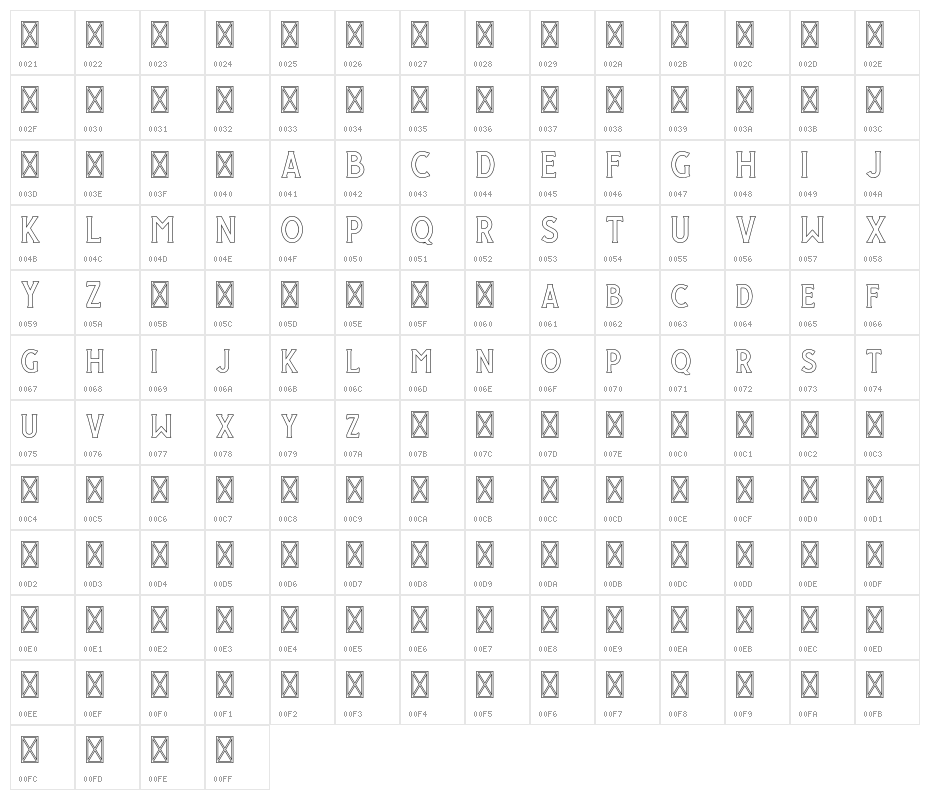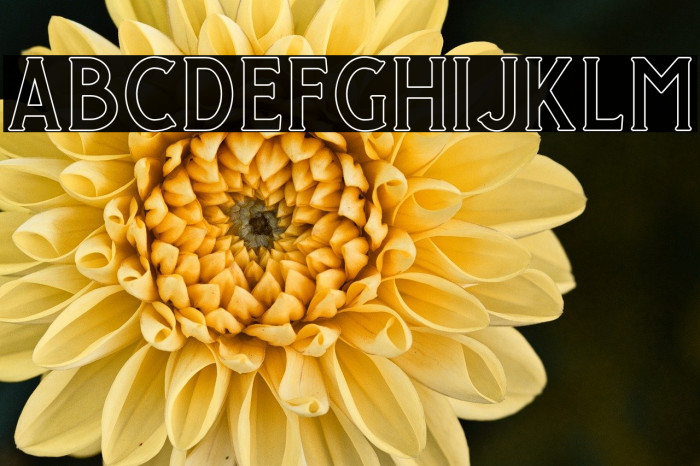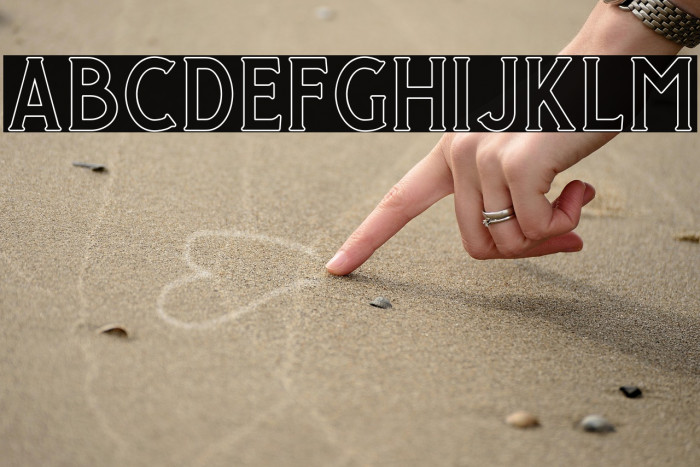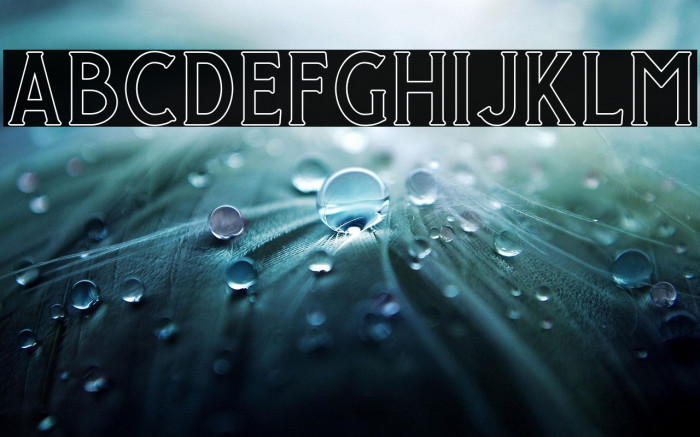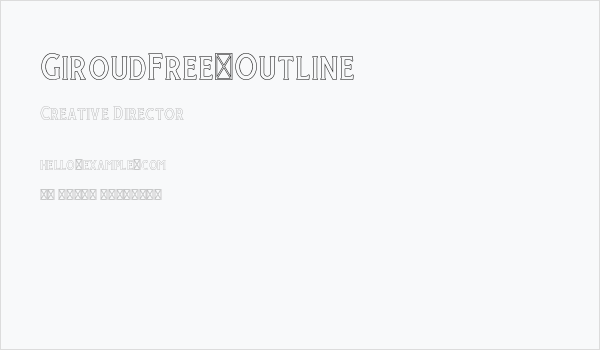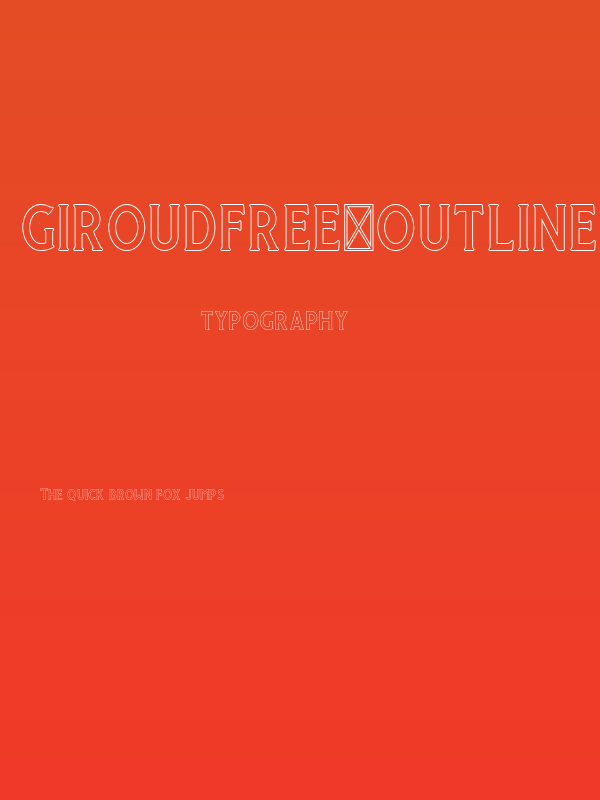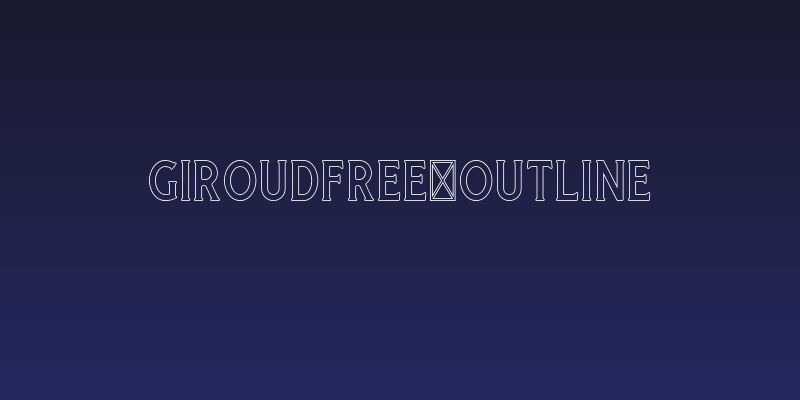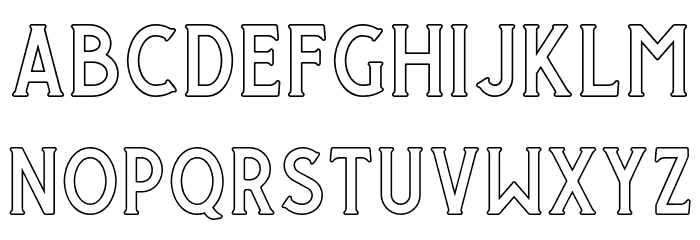
GiroudFree-Outline Font
GiroudFree-Outline Description
This font features a clean and structured outline style, characterized by its geometric and symmetrical letterforms. Each character is defined by a consistent stroke width, creating a uniform and cohesive appearance. The uppercase letters are bold and commanding, making them ideal for attention-grabbing headlines. The font's outline nature gives it a modern and contemporary feel, while maintaining a sense of elegance and sophistication. The spacing between characters is balanced, ensuring readability and clarity. This font is versatile, suitable for various design projects that require a distinctive and stylish look.